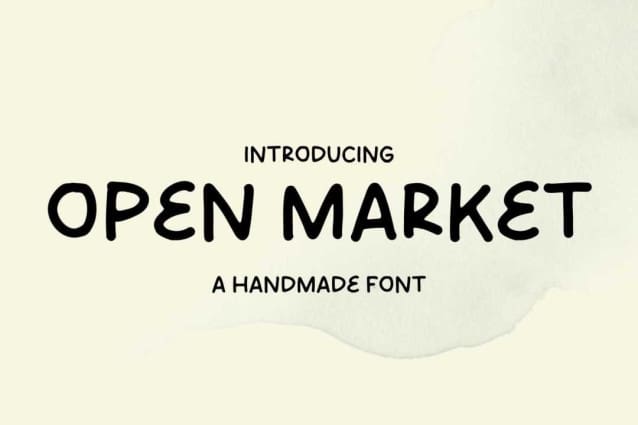
Open Market Font
Open Market Font is a chunky, comic, and cartoon display font. With its neat and joyful personality, this font will enhance any project you wish to create!